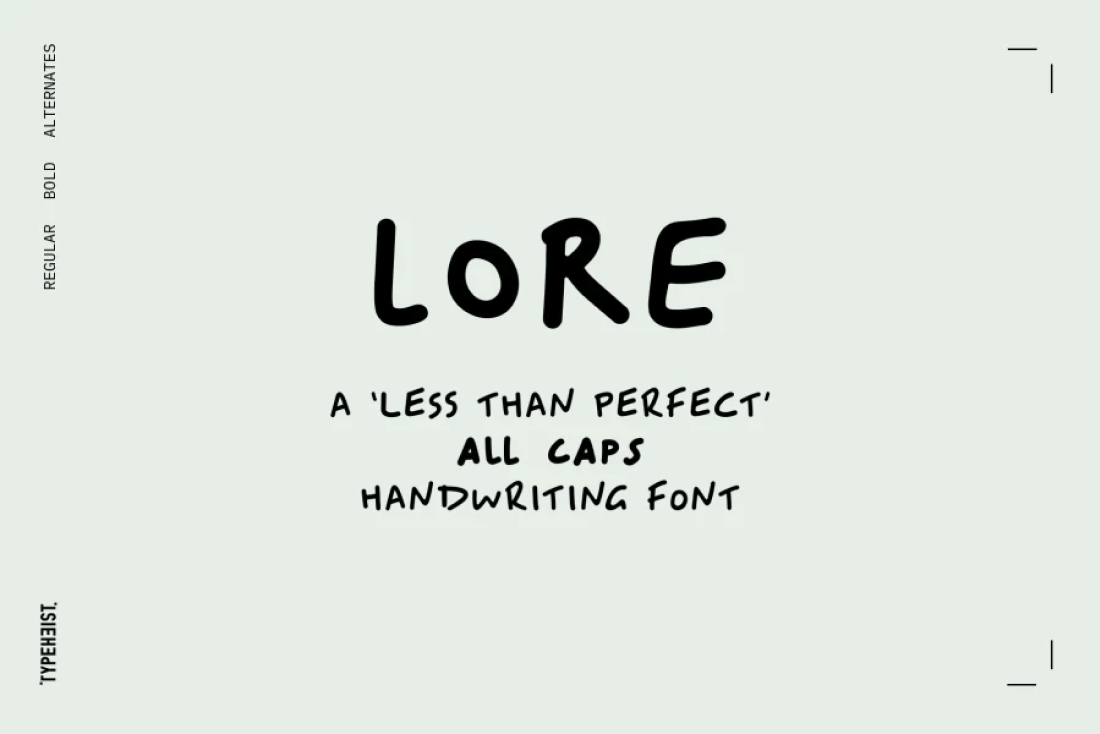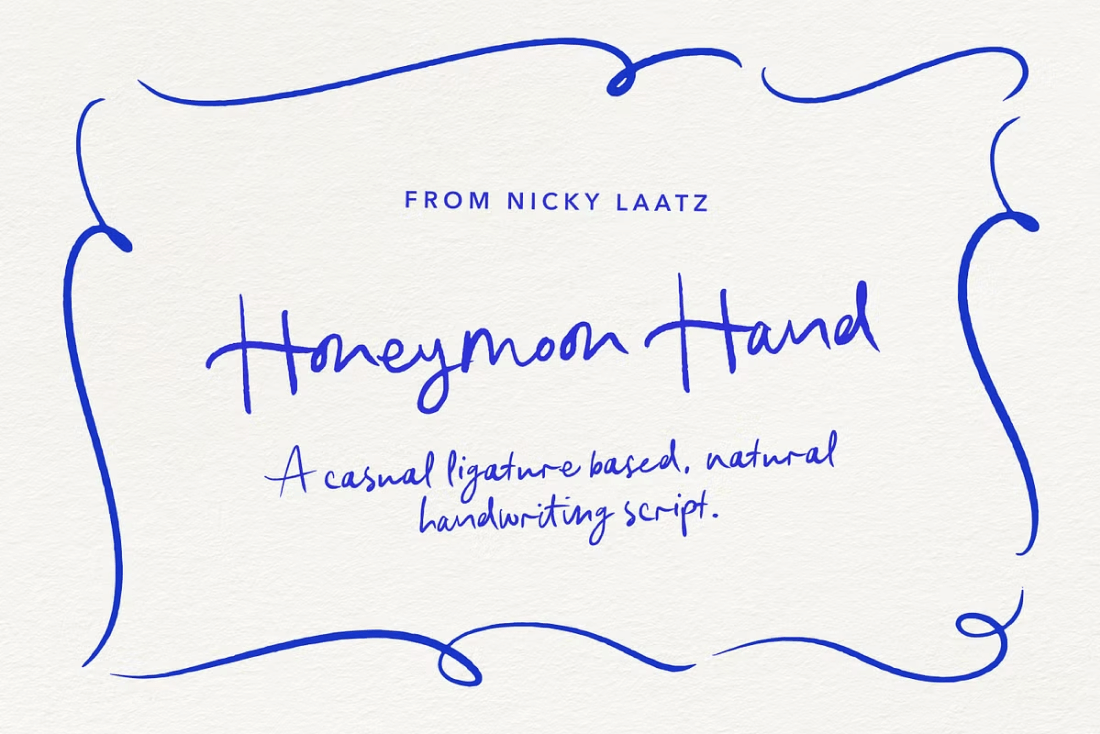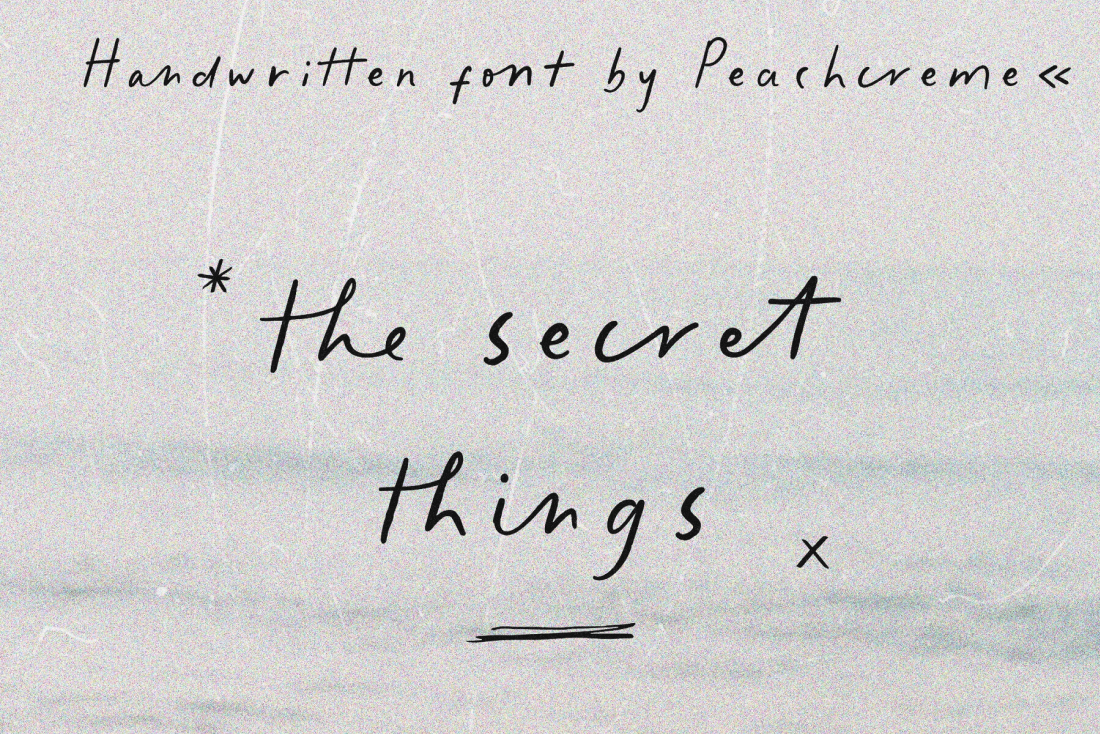
19 fonts that look like handwriting
Find the perfect handwriting font for your next project with our handpicked selection of 19 realistic handwritten fonts.
Handwritten fonts are an excellent way to add warmth and a natural touch to any design. It can be tricky to find the perfect font that reflects the style and tone you want to convey. We've found 19 unique handwritten fonts that look like real handwriting; realistic and natural, each with their own individual personality.
You'll find a range of styles in this list: marker fonts, pencil fonts, feminine fonts, messy fonts, cursive fonts, uppercase fonts - all unique and all handwritten.
Oliver Label
Oliver Label solves a problem many creatives face β the endless search for a realistic pencil-textured font to add handwritten notes to images, quotes, blog posts, and more without having to do it themselves.
Tequila and Tacos
For those ultra natural-looking handwritten, jotted down notes, say hello to Tequila and Tacos! Designed to look casual and carefree, but with business to take care of.
The characters consist of uppercase letters, but they differ in style for the uppercase and lowercase keystrokes, to make the font appear more like natural handwriting.
Manic
Manic is truly a messy handwriting font. It's scribbly, it's scratchy and above all, it's unique.
It has a massive amount of glyphs and ligatures (650+) and each alternate's characters can be mixed and matched to create that extra messy look. Manic looks like real handwriting, like it was scrawled onto paper with a lead pencil.
Seasalt
Imbued with a sense of freedom and breath of fresh air, Seasalt Typeface is a captivating casual marker typeface that has been meticulously designed by Nicky Laatz with an artistic touch.
Meant to mimic natural-looking handwritten notes, it maintains an informal yet captivating appeal that is poised to invigorate your design projects.
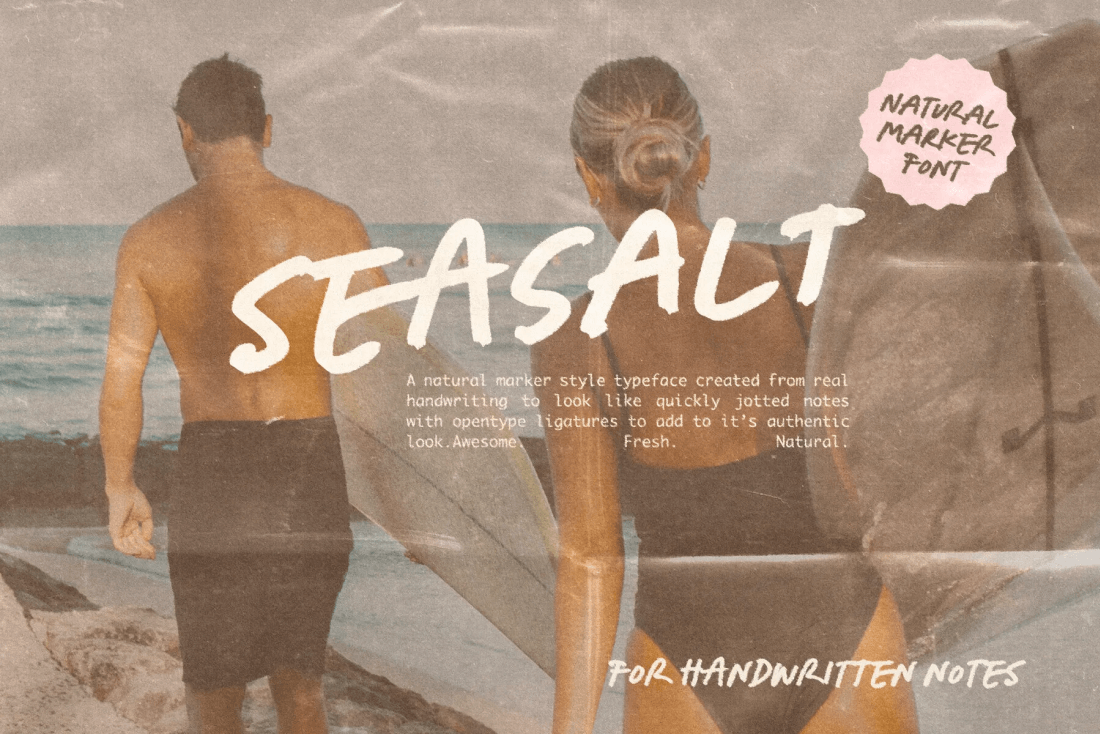
Belmonte Ballpoint
Belmonte Ballpoint is crafted to resemble the organic, slightly textured look of ink from a ballpoint pen, capturing the unique imperfections that make handwritten notes so personal.
Both styles in the Belmonte Ballpoint family work seamlessly together or individually, providing flexibility for creative projects where a handcrafted look is essential.
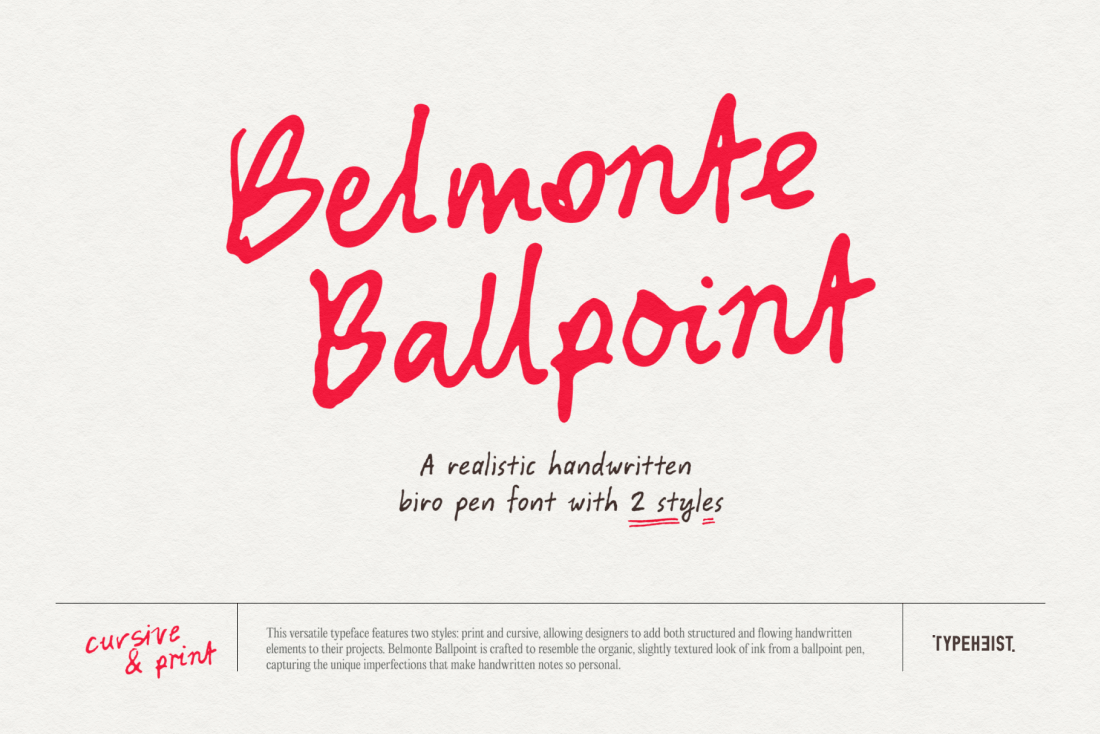
La Belle Epoque
La Belle Epoque is a charming, all-caps handwritten font with fast signature-style strokes and textured ink. It embraces it's imperfections, and that's what makes it grab your attention, especially when paired with a contrasting clean font.
This font comes with a Regular set and an Alternate Set, allowing you to mix-up different letterforms to create your own custom text layouts and maintain handwritten realism.
Juniper Bay
Juniper Bay is a cool, calm & sophisticated handwritten typeface with an organic feel and effortless vibe.
With over 130 custom ligatures, this charming and elegant marker font is perfect for handwritten notes, fashion mockups, social media or even wedding stationery.
Cactus Jack
Cactus Jack is more than just a font. It's a feeling in your bones, it's a perspective on life, it's a war cry to be heard... But it's also a font.
This gritty and oddly stylish font pack comes with not one BUT TWO hand drawn fonts. That's over 125 regular character variations and 50+ international language characters. This guarantees you never have to have repetitive characters in your designs. Mix-n-match to your heart's desire!
Amoretti
Amoretti is an expressionist handwritten typeface whose ethereal and flowing strokes perfectly reflect the soul of a poet's work. The erratic twists and turns give the appearance of an authentic, passionate, and emotional handwritten message.
This font have a different iterations of each character were made to accentuate the font's organic appearance and to convey a sense of spontaneity and randomness.
Pink Champagne
Ultra chic, ultra casual...she's ready to take on the job. Pink Champagne is designed to emulate natural handwriting, with inky, wobbly edges to add to it's authenticity - perfect for adding that natural-looking handwritten touch to your designs.
She also has a large selection of Opentype ligatures to make her appear even more natural and free flowing.
Naturalist
Naturalist is a simple handwritten notes font. It has three sets of A-Z and 0-9 characters in total (and they randomise when you type).
Naturalist's printed, handwritten style, organic texture and natural strokes gives each character an authentic, handwritten feel - as though the words were penned on the very paper you hold.
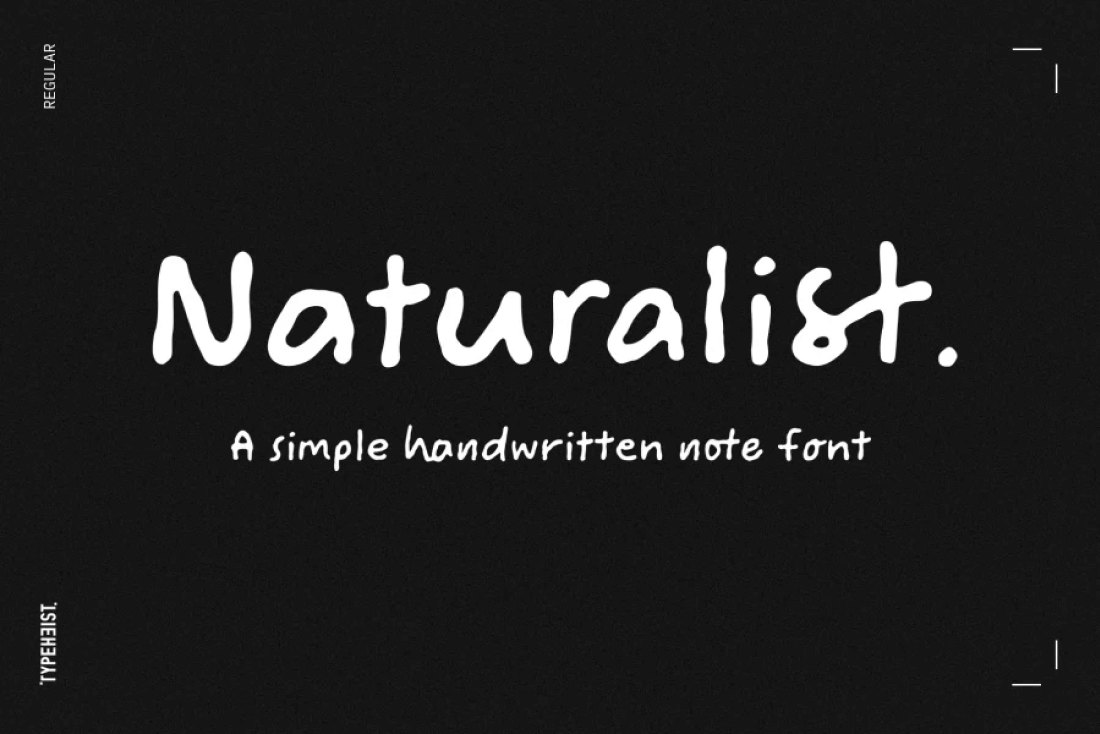
Editor's Hand
Say hello to Editor's Hand, perfect for creating handwritten notes, quotes, logos, or just adding a hand-written touch to any project!